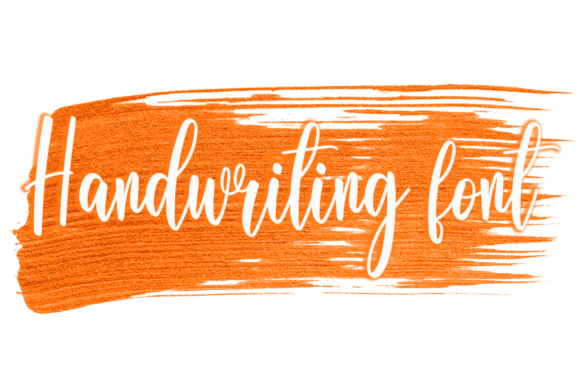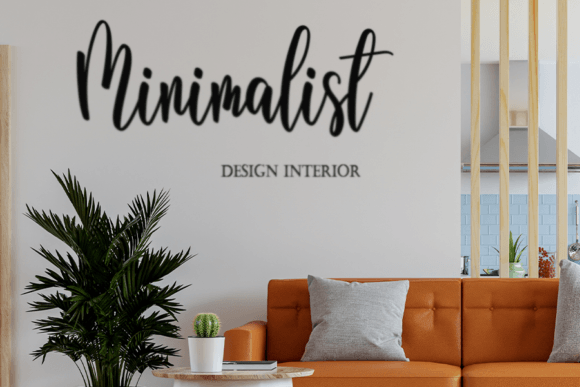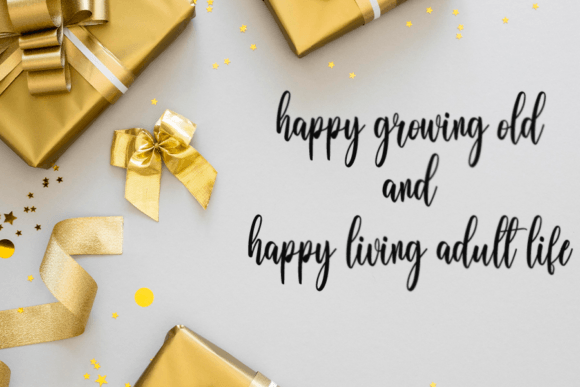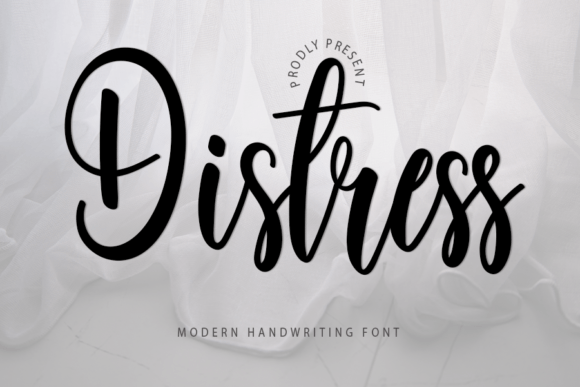
Introduction to Distress Font
Distress is a cool, simple, and playful handwritten font.
Incredibly versatile, this font fits a wide pool of designs, elevating them to the highest levels Add this font to your favorite creative ideas and notice how it makes them come alive.
Distress Font offers exceptional quality and versatility, making it a valuable addition to your design toolkit. Whether you’re creating for personal projects or commercial use, Distress Font delivers professional results.